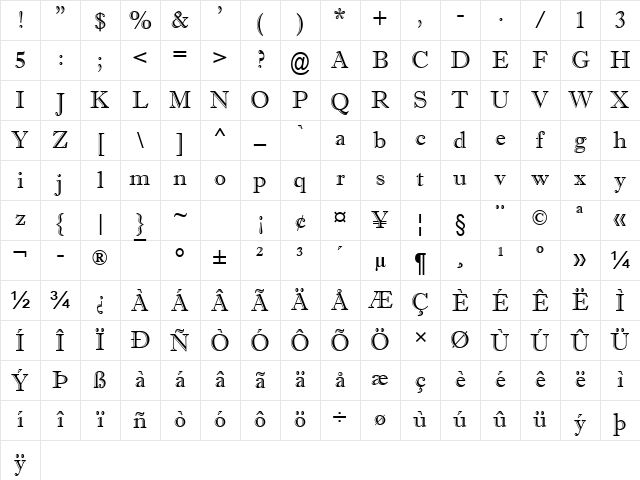
Imprint MT Shadow Regular Free Font
Imprint MT Shadow Regular
Design Context for Imprint MT Shadow
Imprint MT Shadow is built around its visual character rather than neutral utility - its distinctive forms are designed to make an impression at display sizes.
Font Pairing: Pair with a clean neutral sans-serif for body copy to let Imprint MT Shadow's character lead without overwhelming the composition.
Pro Tip: Use Imprint MT Shadow exclusively at display sizes - it was designed to be seen, not read at length. Let a neutral companion handle body copy.